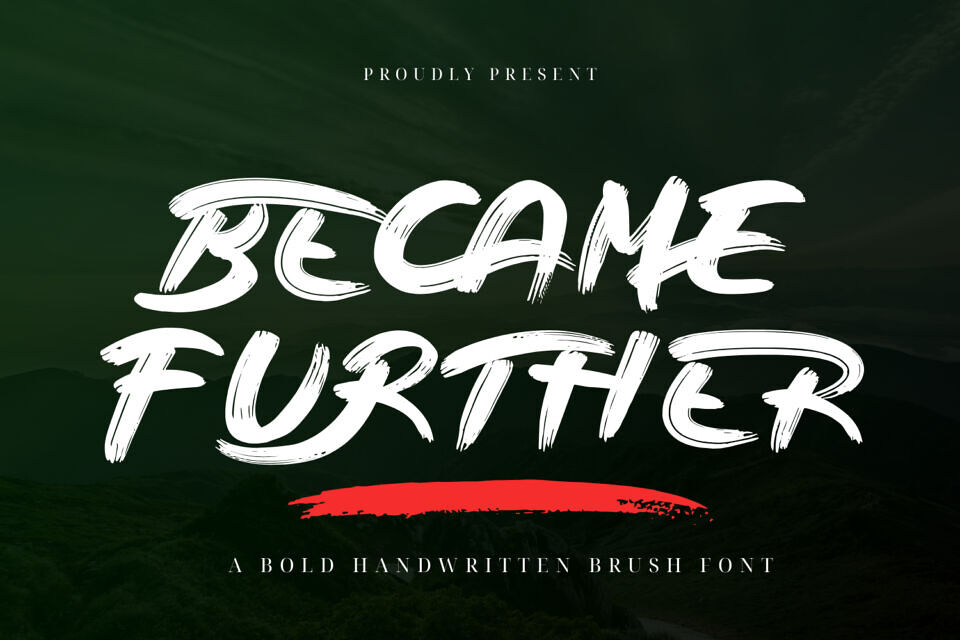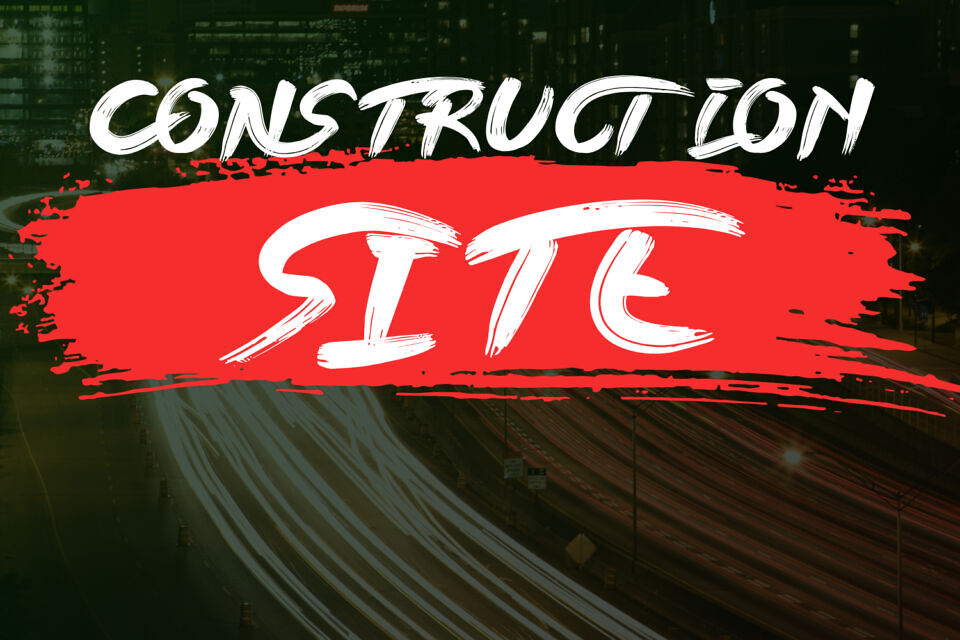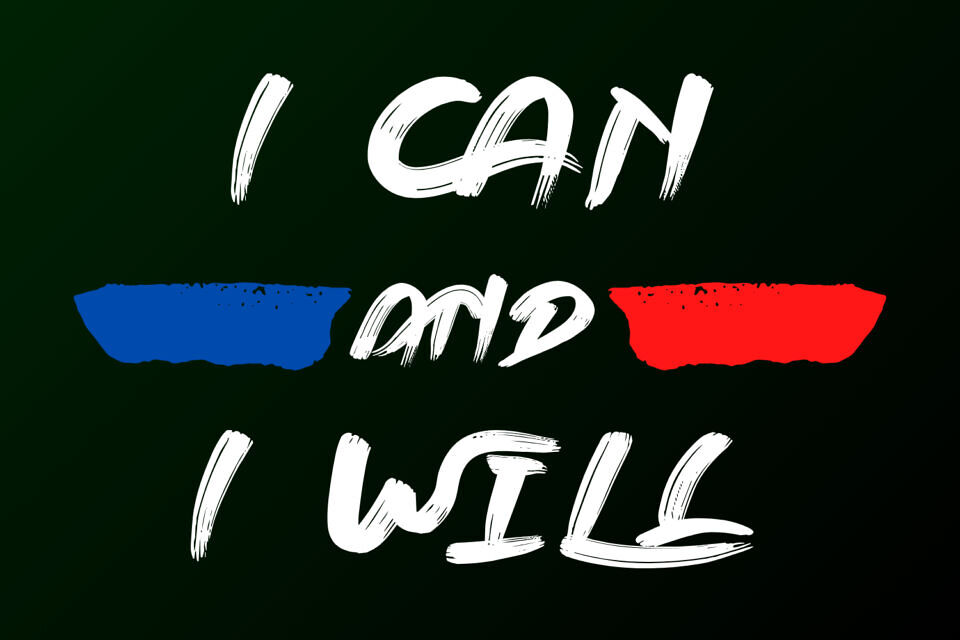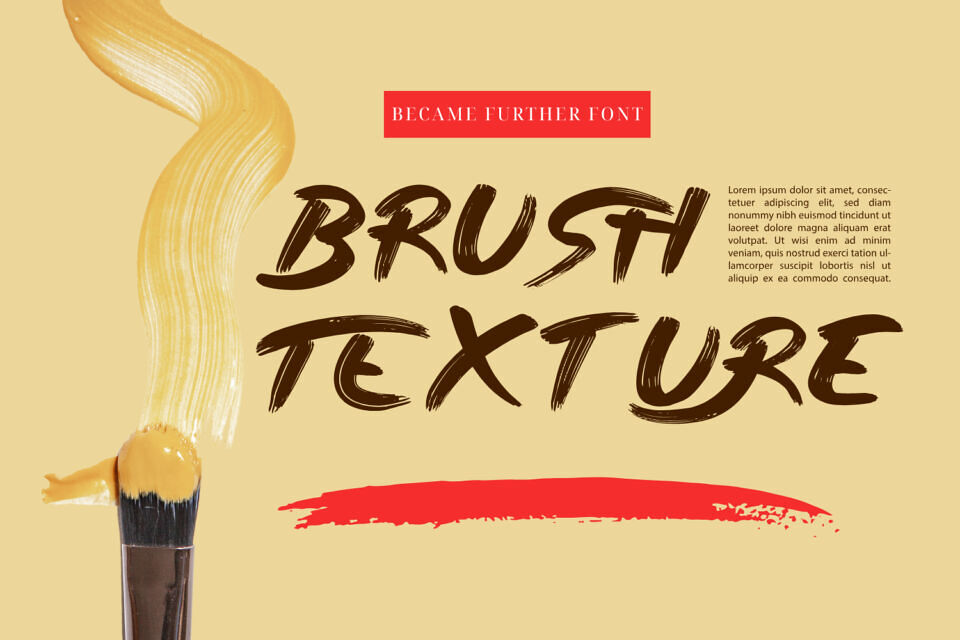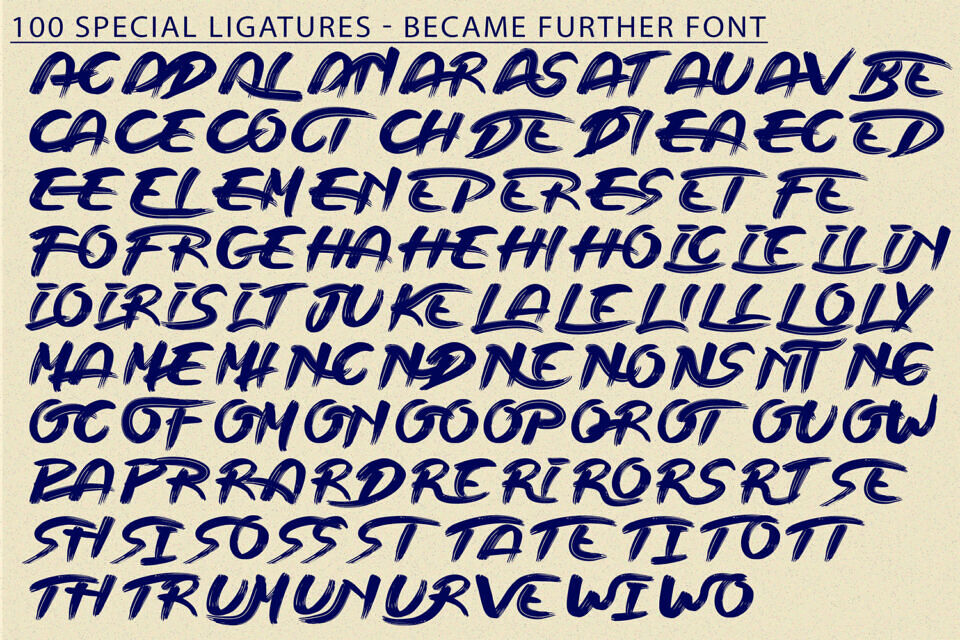
Became Further is a Bold Handwritten Brush Font, a powerful and energetic bold handwritten brush font designed to bring impact and personality to your projects. With its rough brush strokes and dynamic flow, this font is perfect for posters, logos, branding, merchandise, album covers, and more.